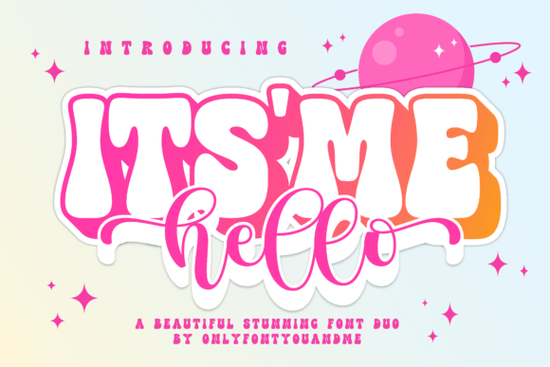
Finding the right font pairing can save you hours of trial and error. The Itsmehello Regular Font is a font duo that bundles a bold, retro-style display typeface with a flowing script font in one package. If you work on social media graphics, wedding invitations, branding projects, or print-on-demand designs, this pairing gives you two complementary styles without needing to hunt for a match yourself.
What Comes in This Font Duo?
This package includes two distinct typefaces:
- "It's Me" a chunky, bubble-style display font with thick, rounded letterforms and wide, blocky shapes. It has a groovy, retro feel that works well for headlines, logos, and bold text elements.
- "Hello" a modern script font with fluid strokes, decorative swashes, and elegant thick-to-thin contrast. It brings a handwritten, calligraphic warmth to any layout.
When Should You Use a Bold Display and Script Font Together?
Combining a heavy display typeface with a delicate script creates visual contrast that draws the eye. This technique is common in:
- Wedding and event invitations the script adds elegance while the display font anchors the headline.
- Social media posts bold type grabs attention in fast-scrolling feeds, and the script adds personality.
- Branding and logo design mixing styles helps establish a distinct look without cluttering the layout.
- Print-on-demand products mugs, tote bags, and t-shirts often use font pairs to create readable, stylish designs.
- Greeting cards and stationery the whimsical script pairs naturally with playful display lettering.
If you're working on a project that needs both energy and grace, a duo like this one covers both ends of the spectrum.
How Does "It's Me" Compare to Other Display Fonts?
The "It's Me" display font has a cartoon-like personality with consistent stroke weight and tight spacing. Its soft, curved terminals give it a friendly, approachable feel. If you like this style, you might also want to explore other retro-inspired display typefaces for projects that lean into vintage aesthetics.
For bolder, more experimental layouts, mixed-style display fonts can add an editorial edge. And if you're planning seasonal designs, themed font bundles save time by grouping related styles together.
Where Does the "Hello" Script Font Work Best?
The script half of this duo features flowing letter connections, elongated ascenders and descenders, and decorative swashes. It reads as elegant but not stiff more like natural handwriting with refined proportions.
This kind of script pairs well with monogram-style typefaces for personalized products, or with clean display fonts when you want the script to stand out as a focal point.
Use it for:
- Signature-style logos
- Quote graphics and inspirational text
- Product labels that need a handcrafted look
- Headers on blogs, websites, or digital downloads
- Test readability at your target size The display font shines at larger sizes; the script works best for medium to large text.
- Check your software Confirm you can install and access TTF/OTF files in your design tool.
- Plan your pairings Use "It's Me" for headlines and "Hello" for accents, or mix them depending on the layout.
Start by testing both fonts in a simple mockup a social media post, a product label, or a card layout. Seeing them side by side in context is the fastest way to know if they fit your project.